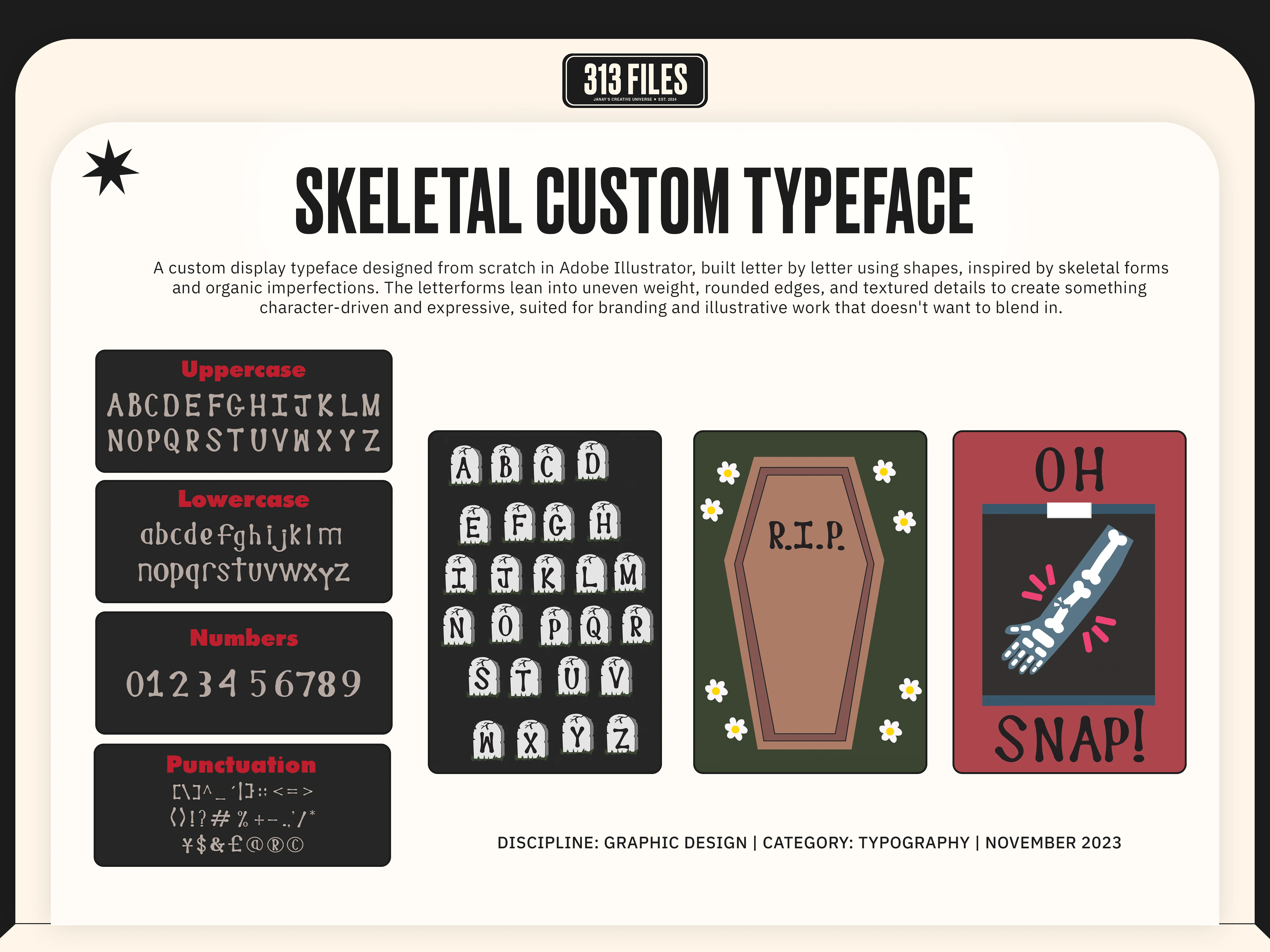
A custom display typeface designed from scratch in Adobe Illustrator, built letter by letter using shapes inspired by skeletal forms and organic imperfections.